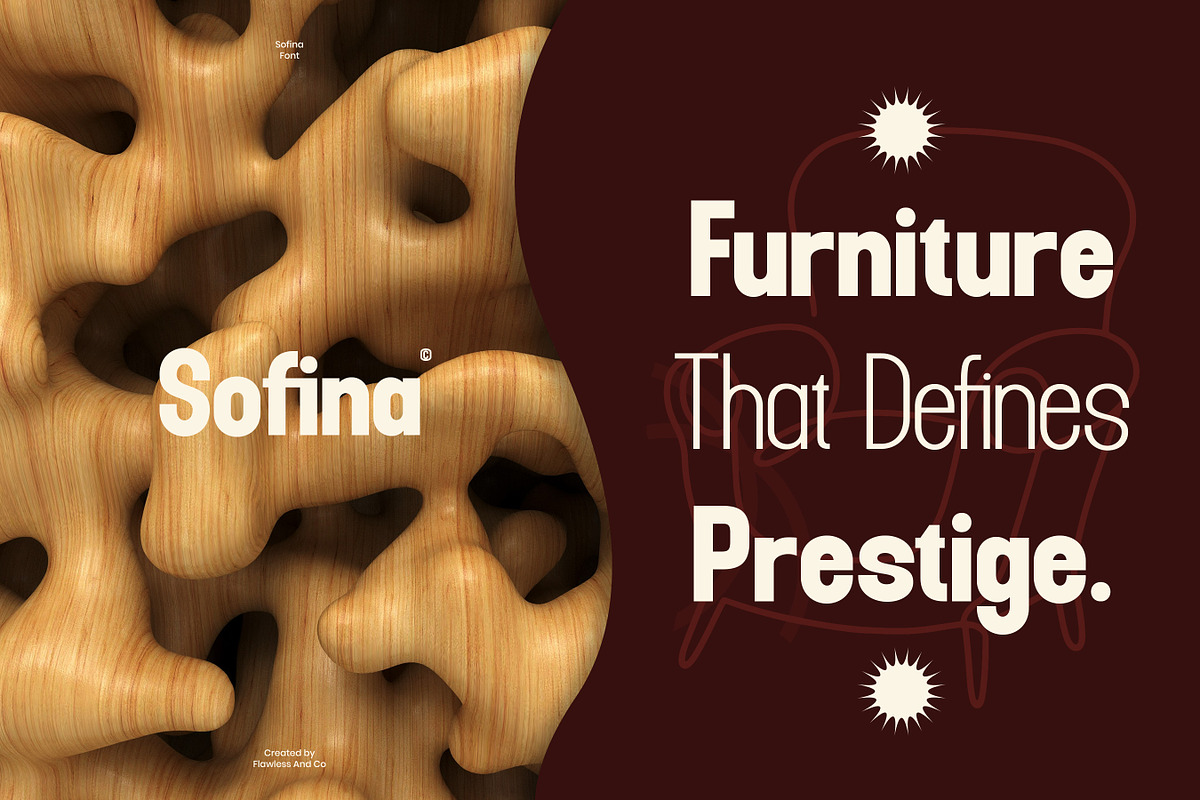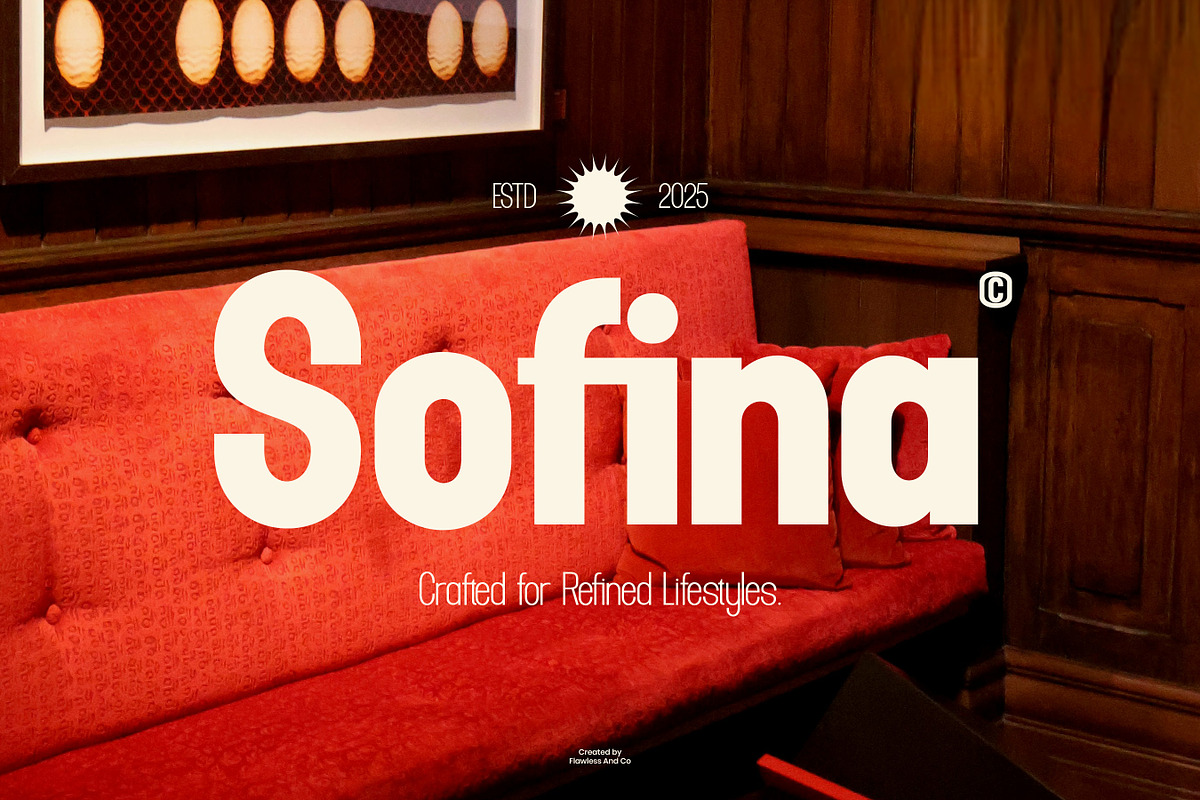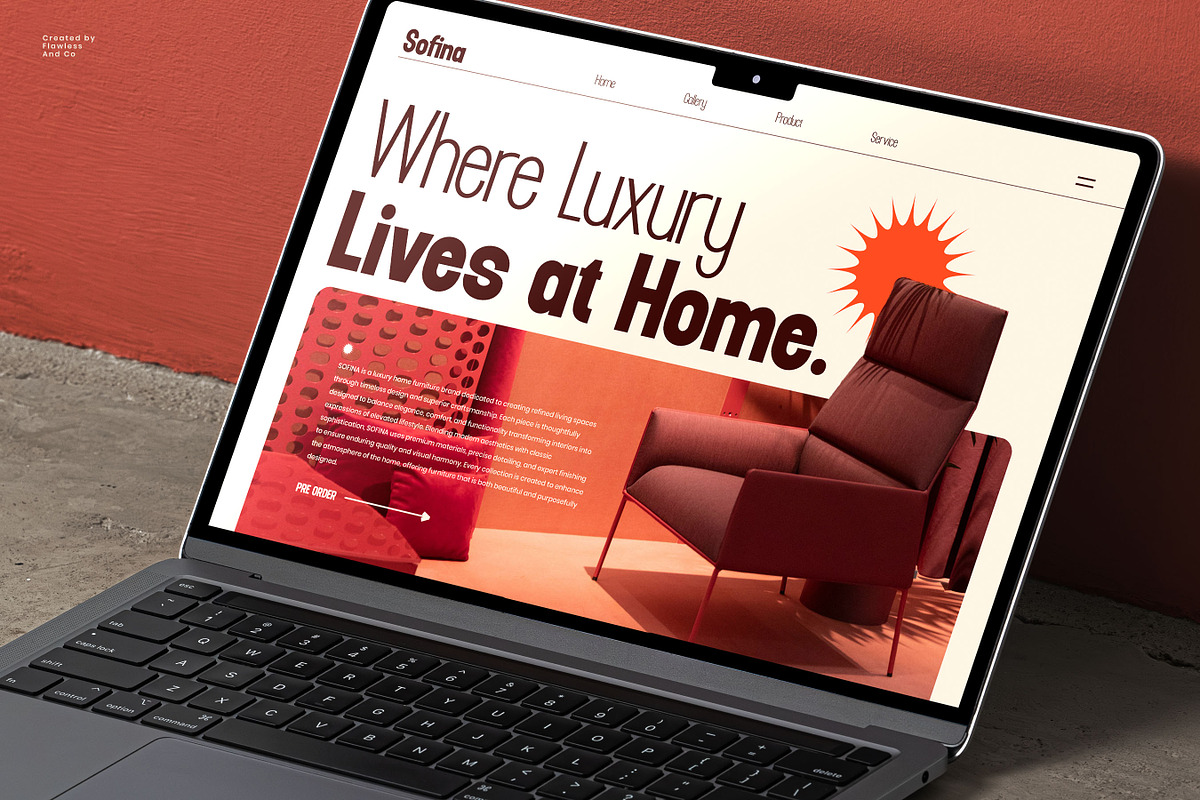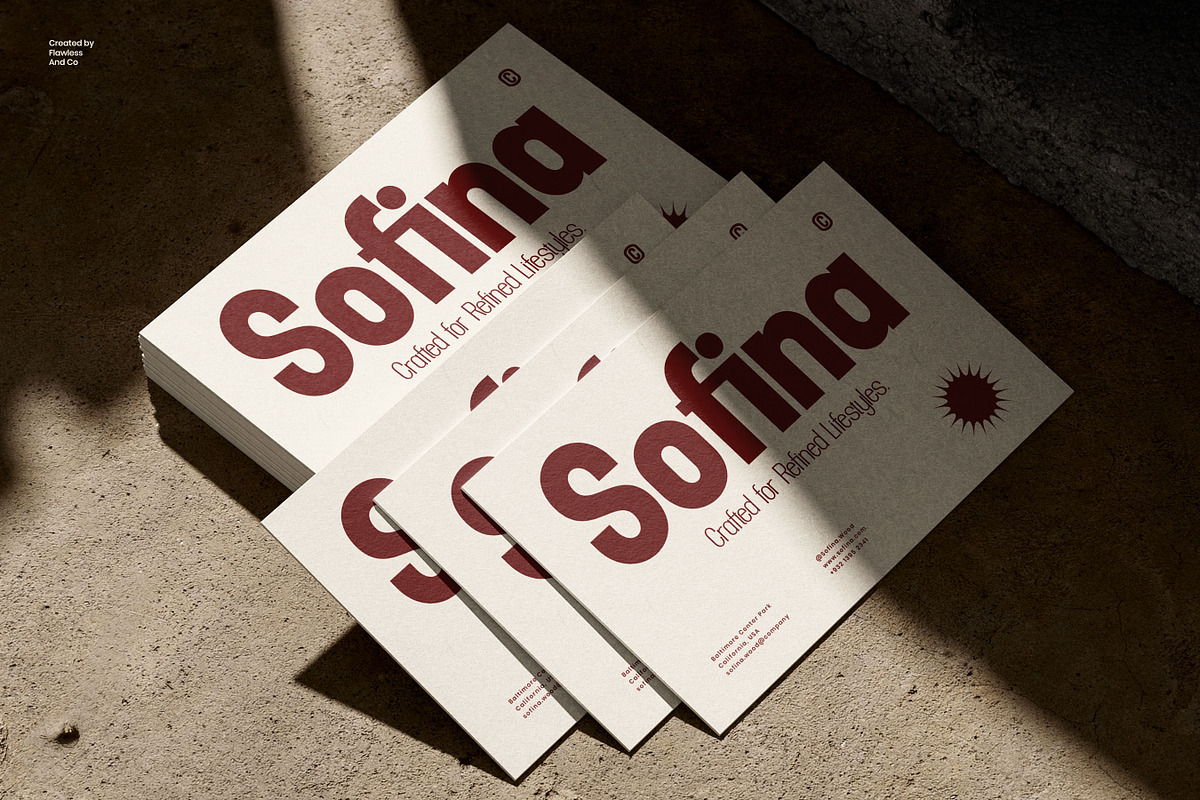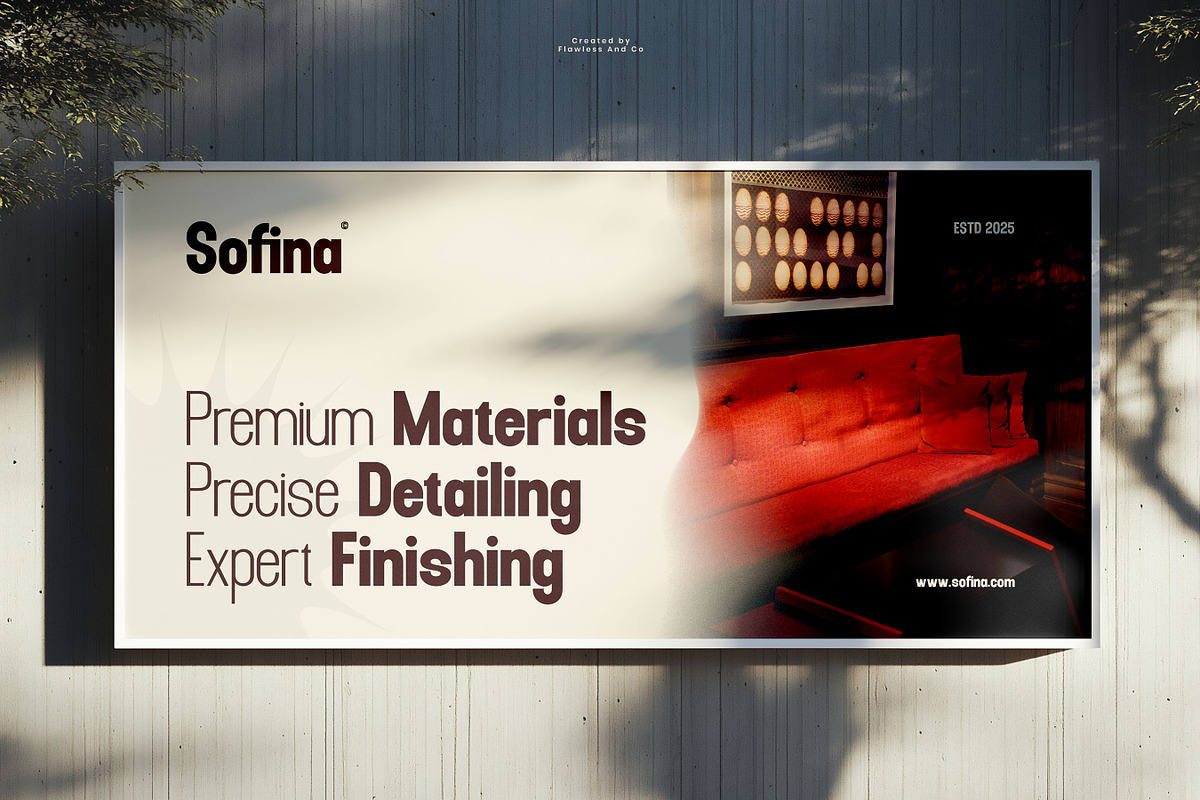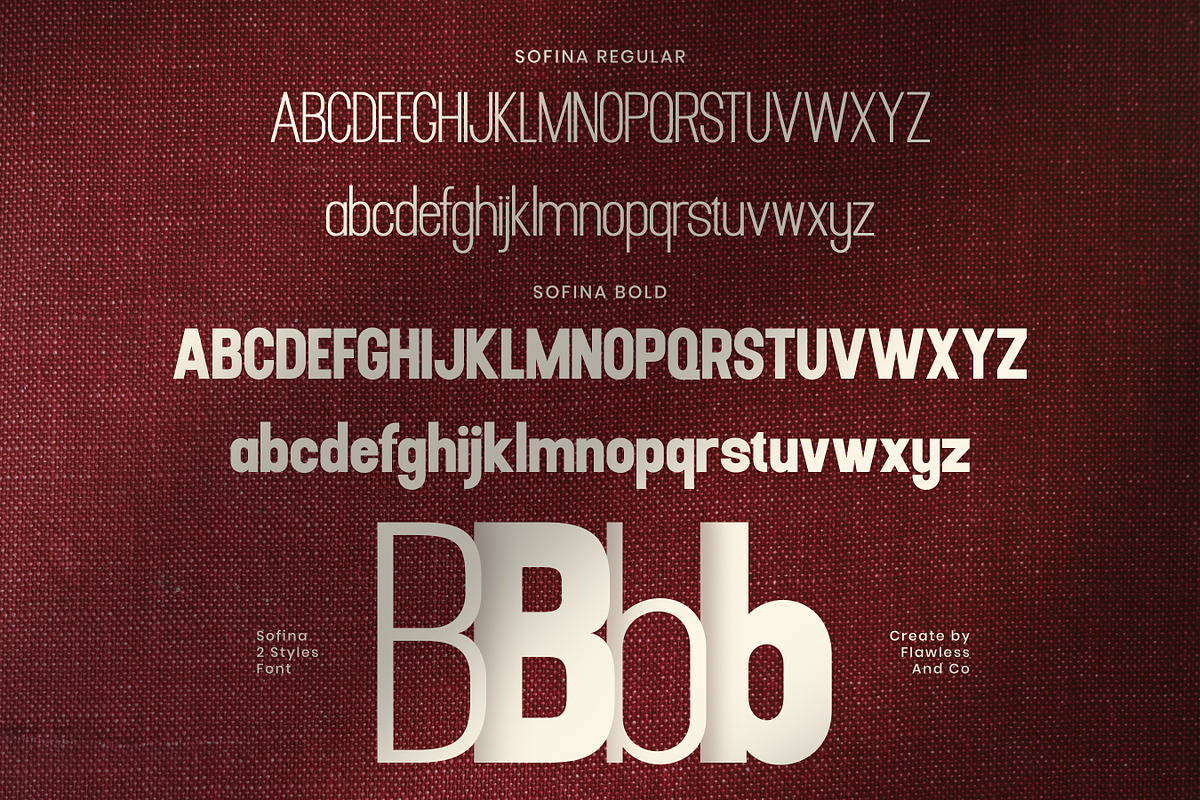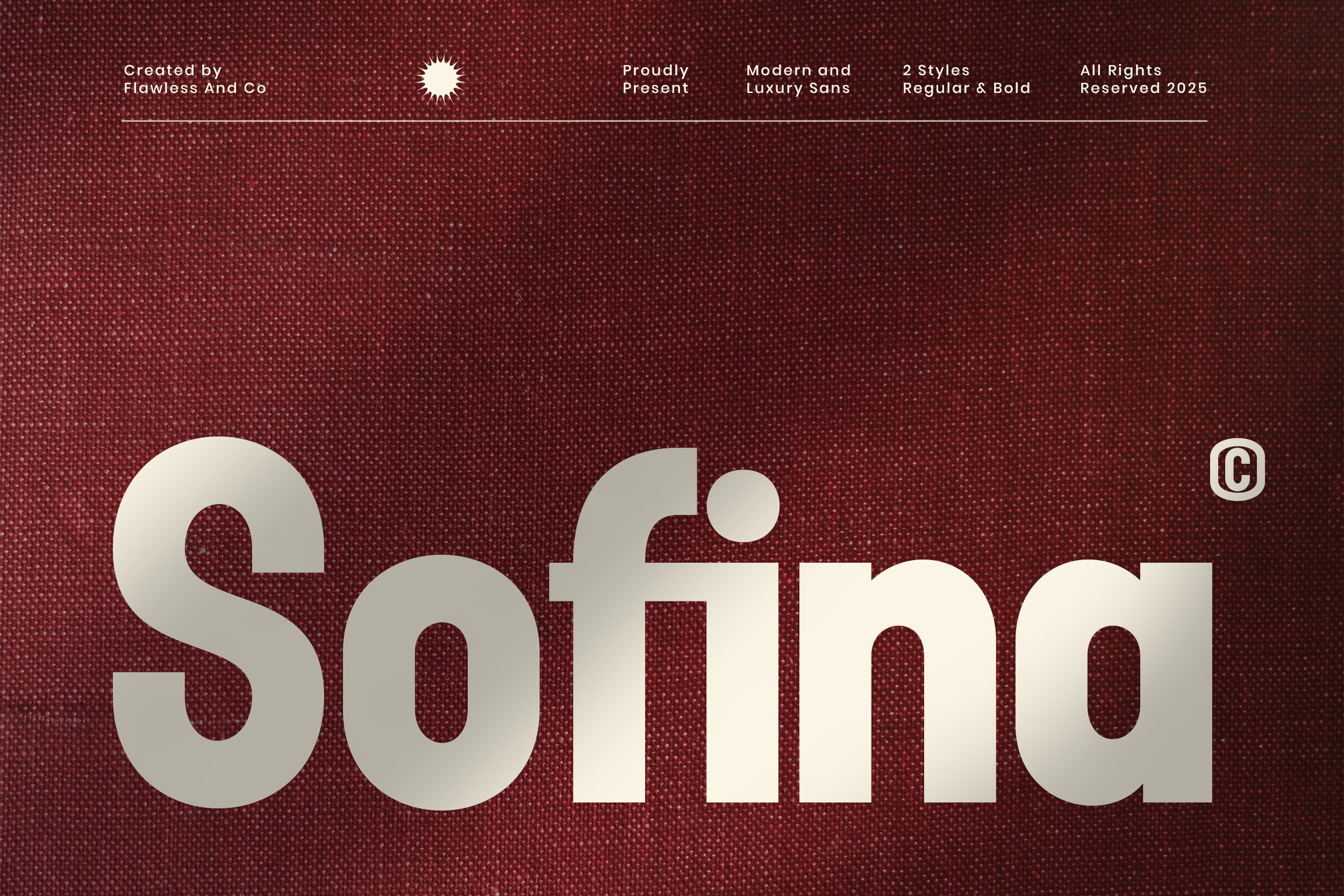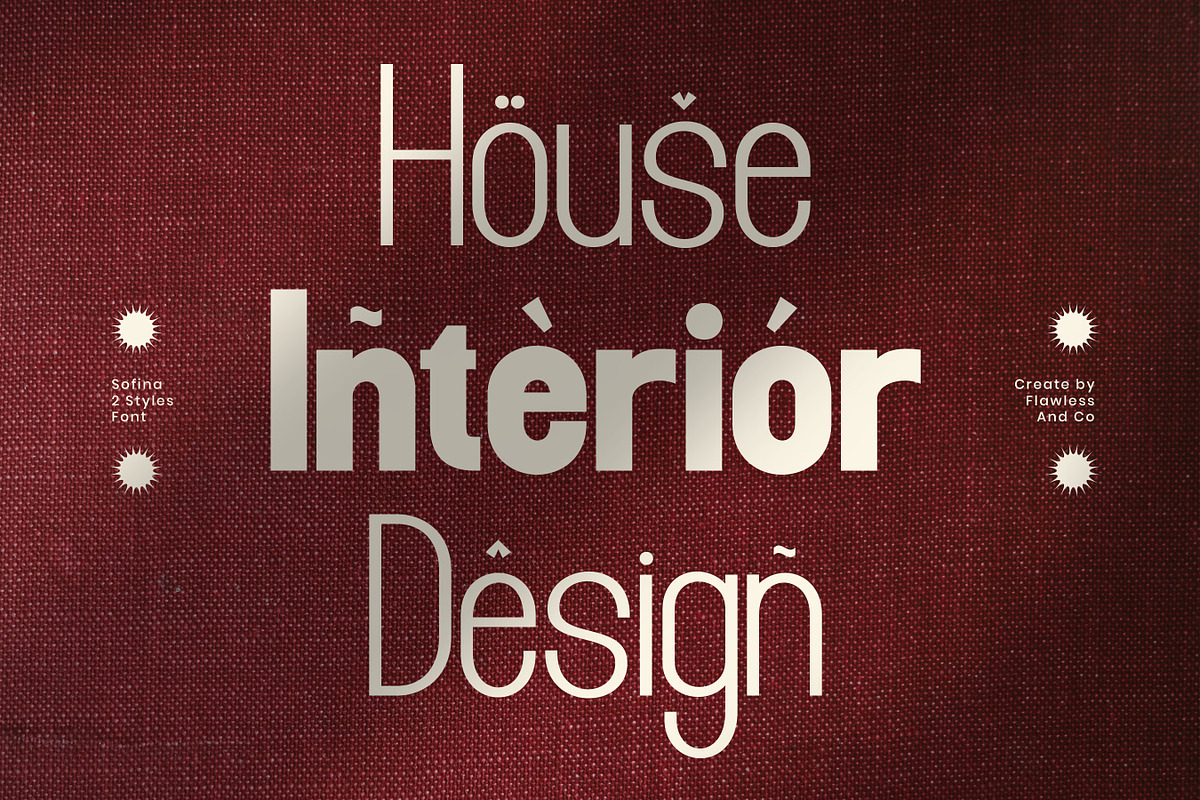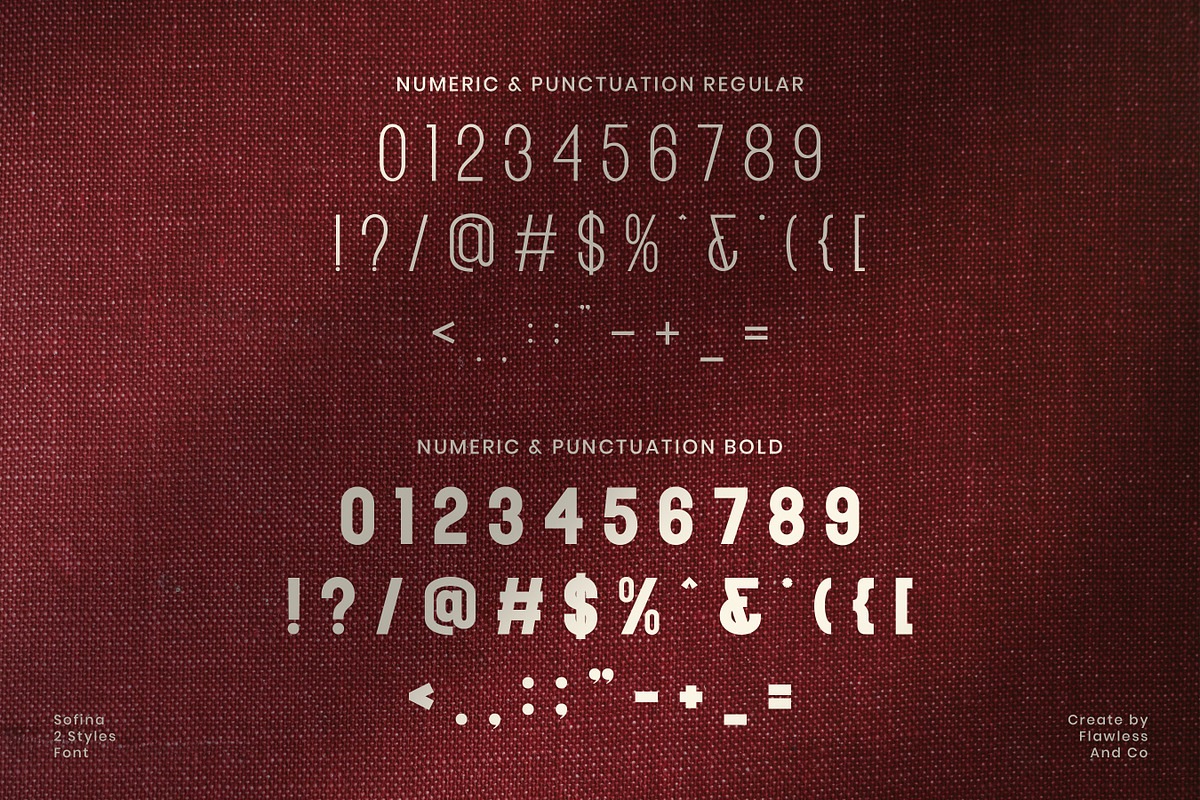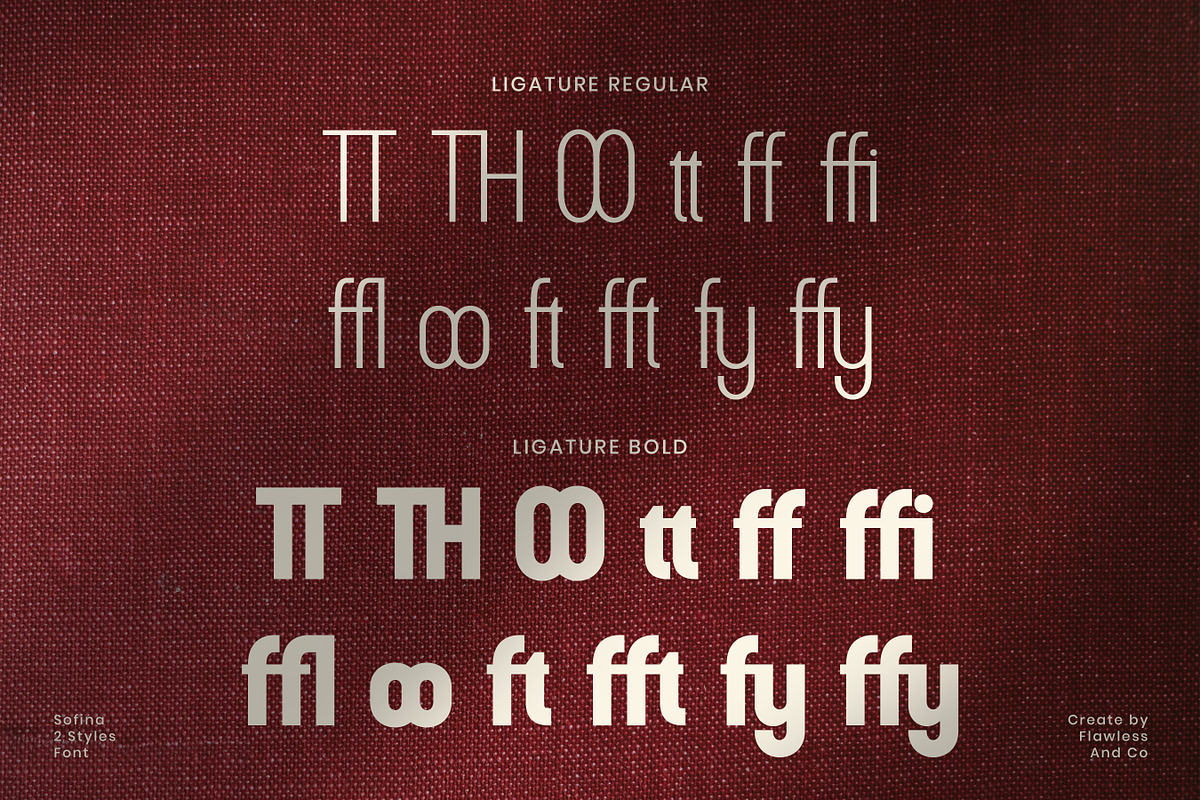
Sofina - Modern Sans Serif Font
Sofina is a modern sans serif font designed with clean geometry and refined simplicity. Featuring smooth curves, balanced proportions, and a contemporary aesthetic, Sofina delivers a professional and luxurious feel that works beautifully across both digital and print designs. With its minimal yet elegant character, Sofina is perfect for creating strong visual statements without sacrificing clarity.
Who Should Use Sofina?
Sofina is ideal for brand designers, graphic designers, and creative professionals who need a modern sans serif font that feels elegant, confident, and versatile for premium projects.
Why Choose Sofina for Brand and Logo Projects?
Sofina combines modern minimalism with a luxurious touch. Its clean letterforms ensure excellent readability, while its refined design adds a premium feel—making it suitable for brands that want to look polished, contemporary, and trustworthy.
Suitable For
- Brand and logo design
- Luxury and corporate branding
- Website and UI design
- Editorial and marketing materials
- Packaging and product design
- Social media and digital content
- Print and promotional layouts